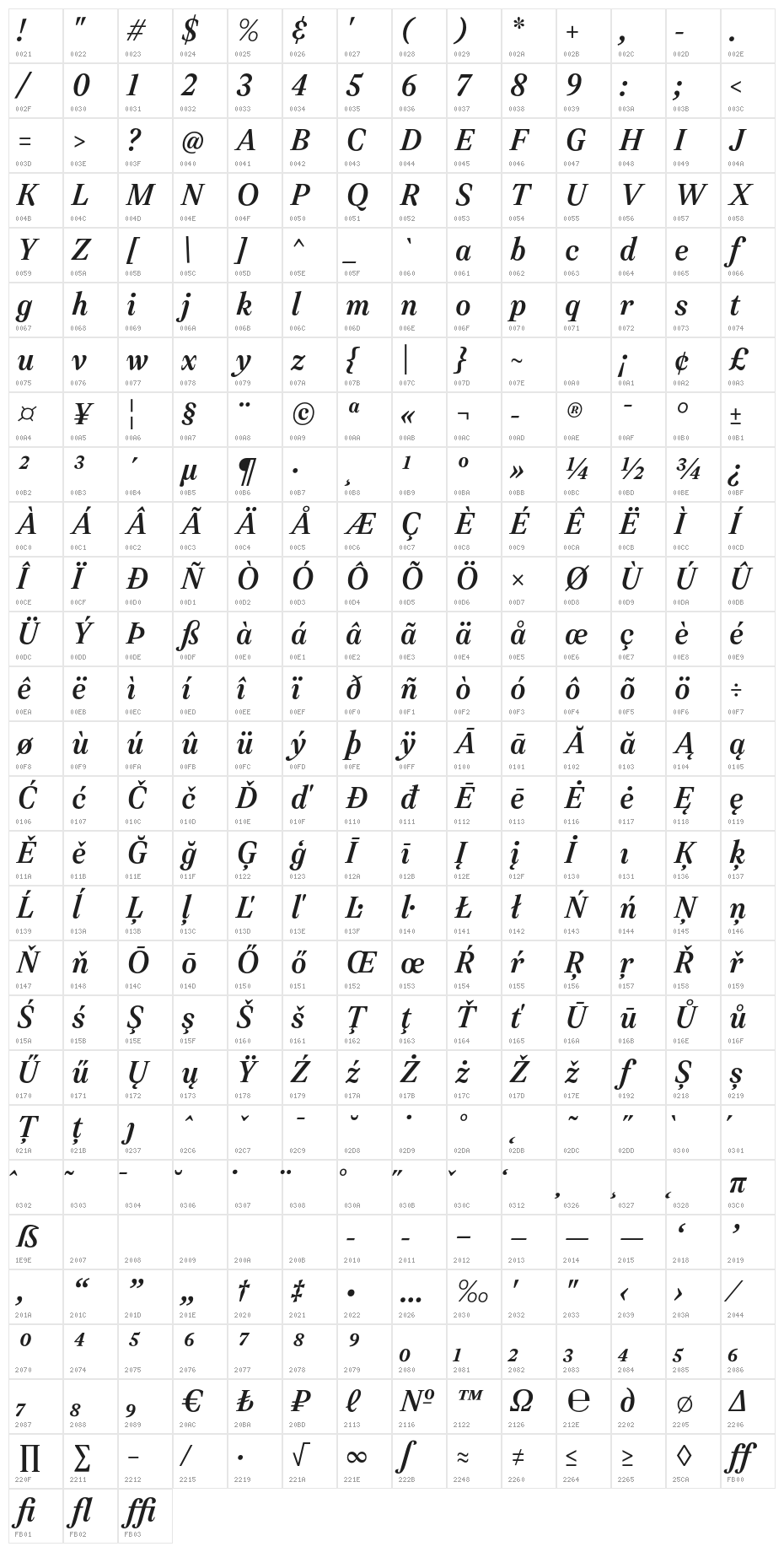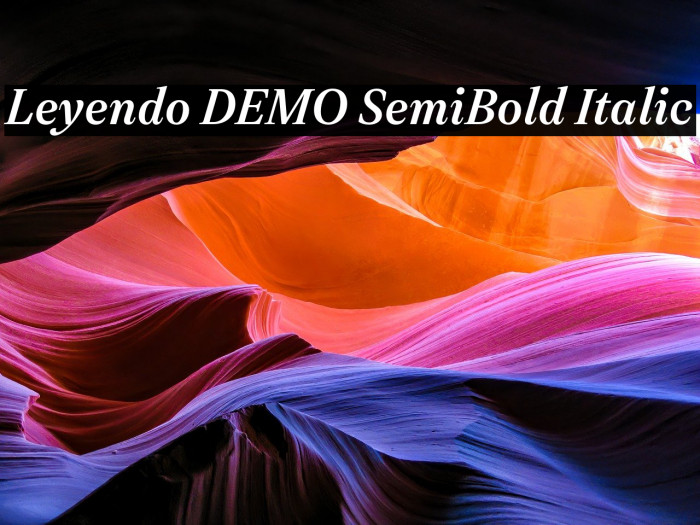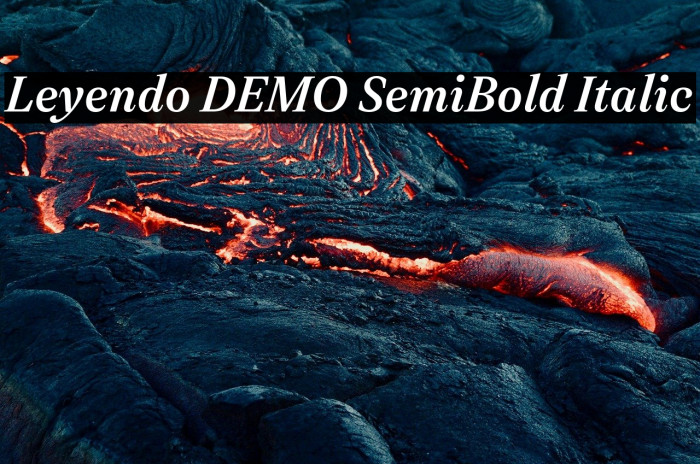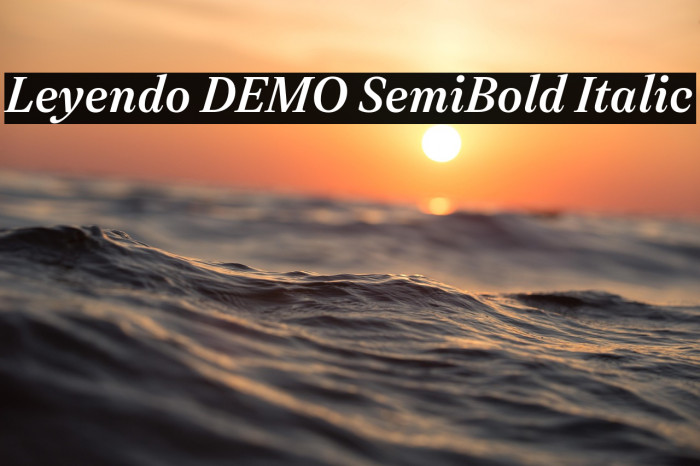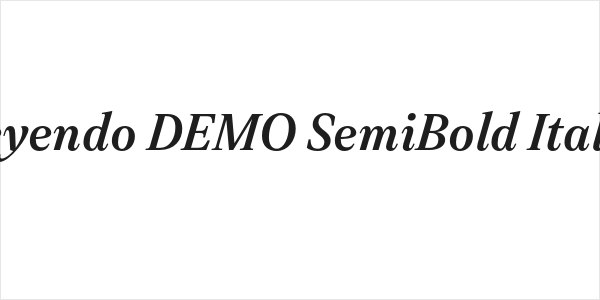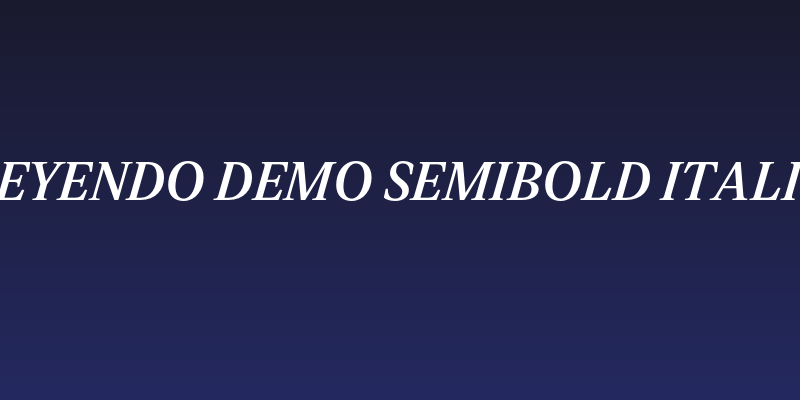
Leyendo DEMO SemiBold Italic Font
Leyendo DEMO SemiBold Italic Description
This font features a classic serif style with a modern twist, characterized by its semi-bold weight and italicized form. The letters exhibit a graceful slant, adding a dynamic and elegant feel to the text. The serifs are pronounced yet refined, providing a sophisticated touch. The uppercase letters are bold and commanding, while the lowercase letters maintain a smooth and flowing appearance. The numerals are clear and distinct, ensuring readability. Special characters are well-integrated, maintaining the overall aesthetic. This font's balance of boldness and elegance makes it versatile for various design needs.
Proposed ProjectsIdeal for editorial design, book covers, branding projects, and elegant invitations.